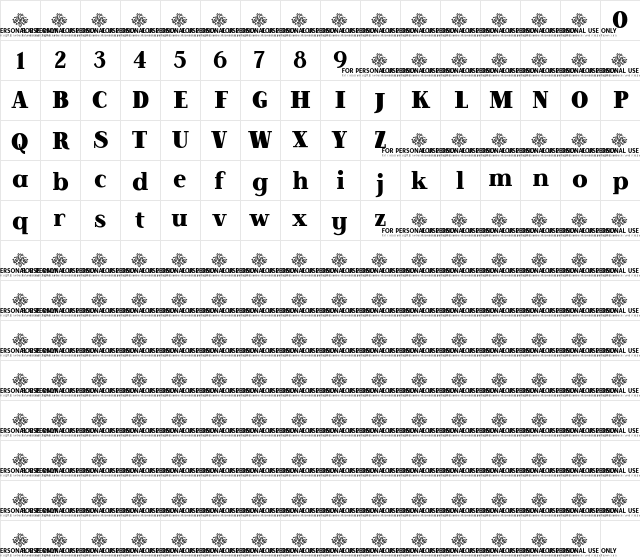
Lilac Block Demo Bold
| Foundry | Roland H߳e |
| Designer | Roland H߳e |
Design Context for Lilac Block Demo Typeface
Lilac Block Demo offers clean, dependable letterforms without strong stylistic allegiance, making it a practical choice for designers who need flexibility. The heavy weight commands attention and anchors typographic hierarchies.